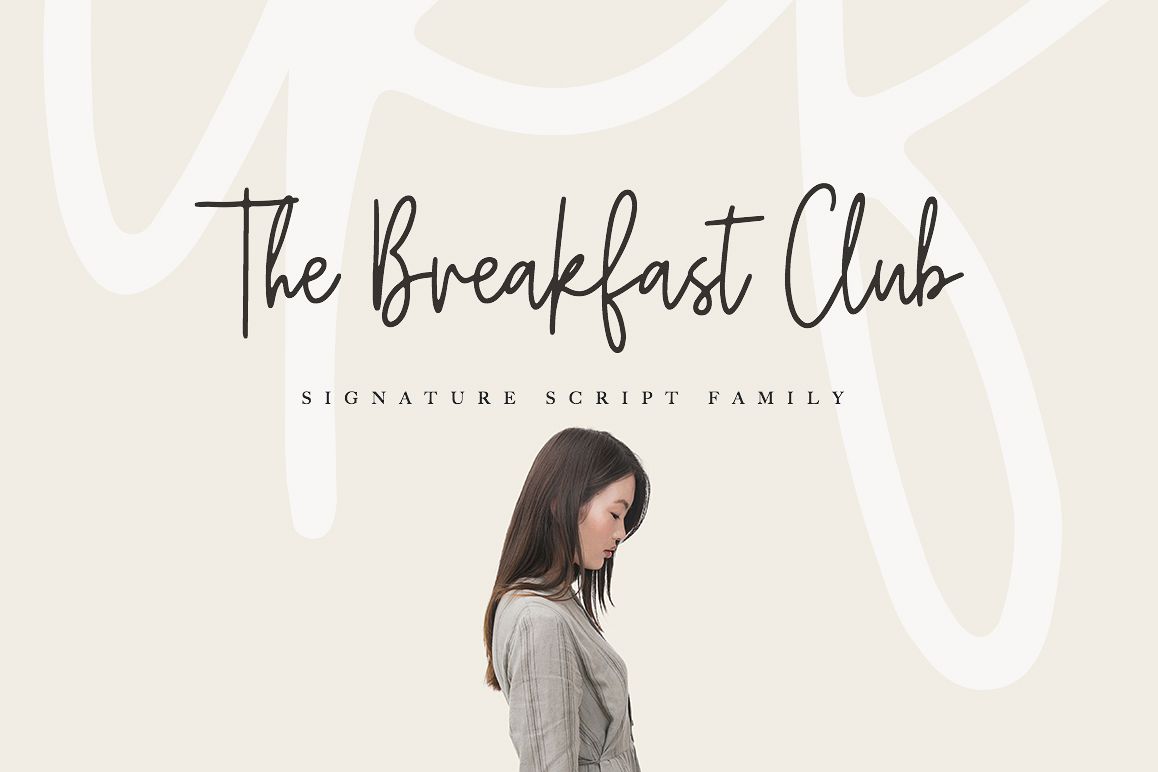
The Breakfast Club handwritten script
This modern calligraphy script  has been attentively written, with gentle curves to produce a font thats completely distinctive and original. It contains a full set of lower & uppercase letters, a large range of punctuation, numerals, and multilingual support. Perfect for adding a elegant and unique touch to your lettering projects and branding
• Support ALL European Languages